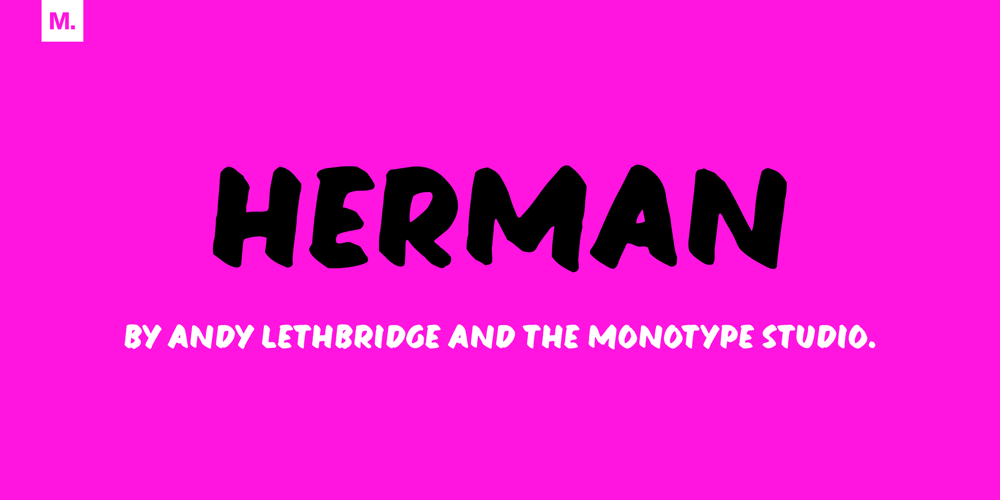
Herman Font Family was designed by Andrew Lethbridge and published by Monotype. Herman contains 1 styles and family package options. An edgy little number here; Herman was created using a chiselled marker pen and is handwritten as a slanted, bold font with a distinct marker contrast. Designed with two sets of all caps, and alternates that rotate the upper and lower case; Herman is a standout that’s charming and slightly retro, too.